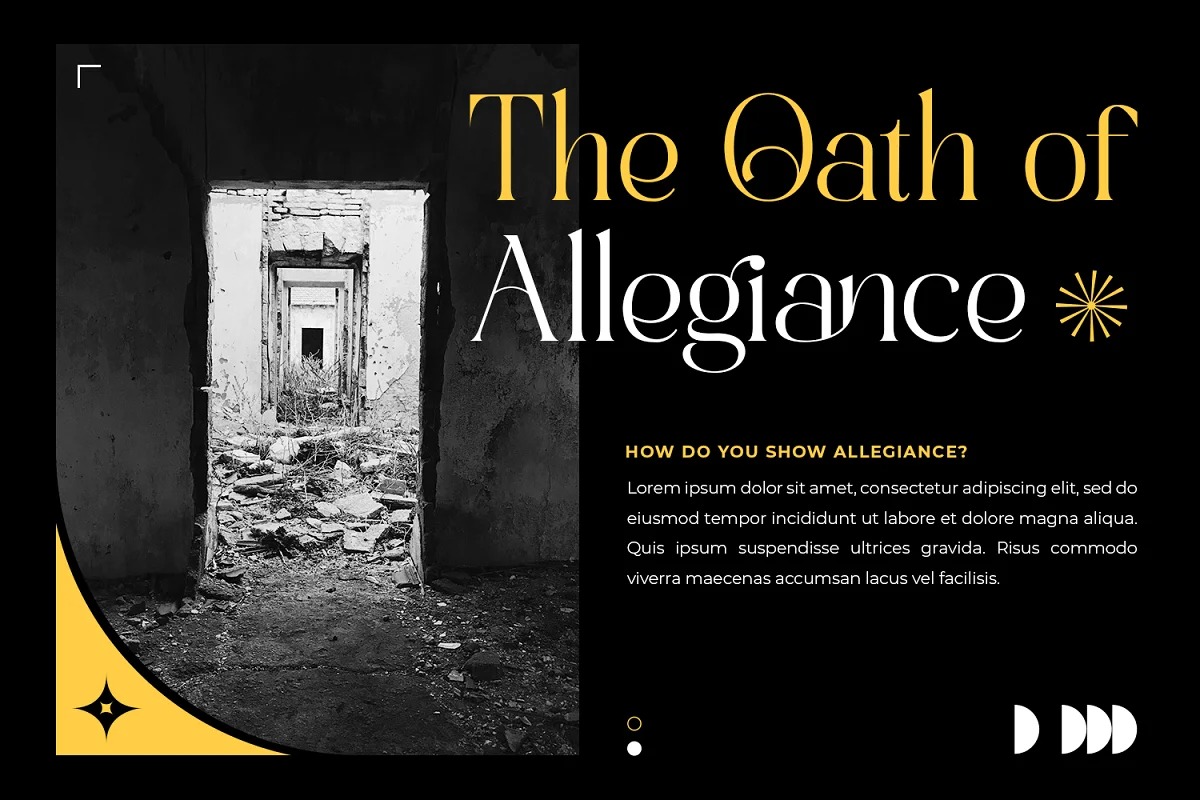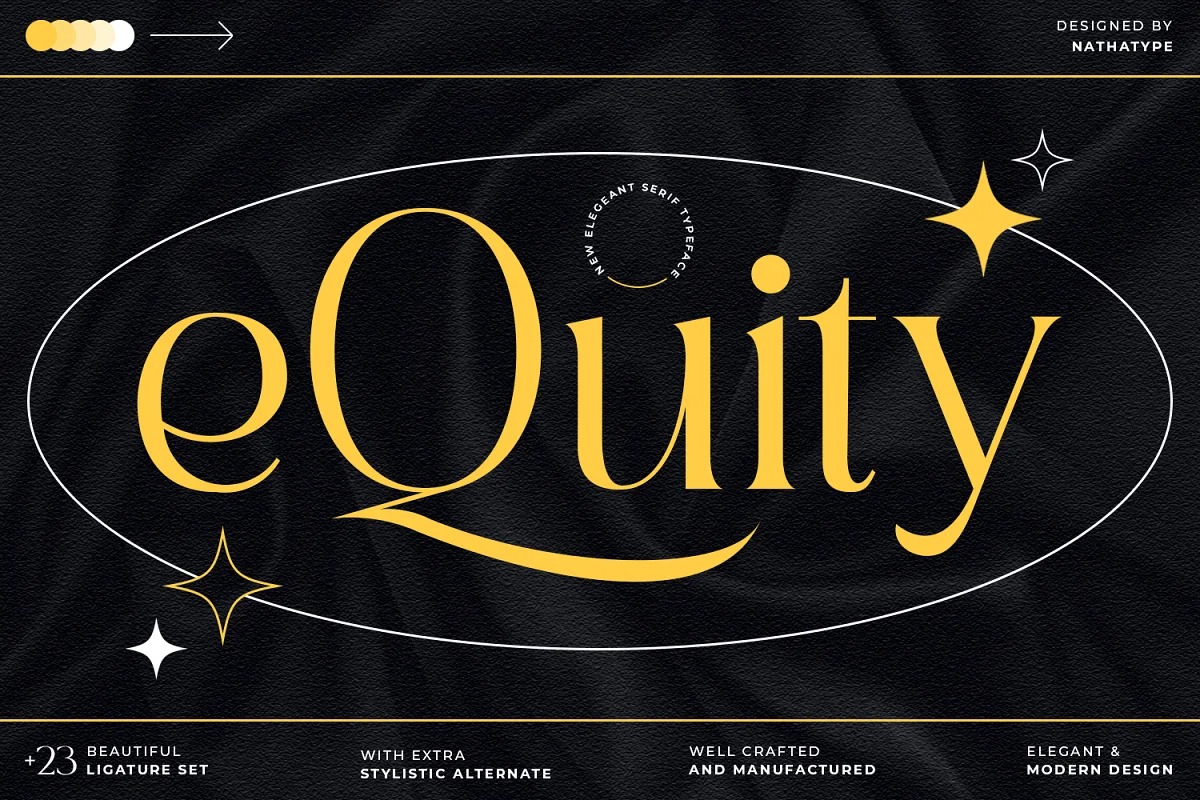
e Quity Font
EQuity Serif Font
This is an elegant modern serif font family, inspired by fashion. It’s designed and shared by Din Studio. This font is perfect for branding, logos, wedding stationery, cards, gift designs, photography, watermark, product packaging and quotes. You won’t get cute, whimsical, funny logos with this font. Only high-end, upscale, sophisticated Branding Design.